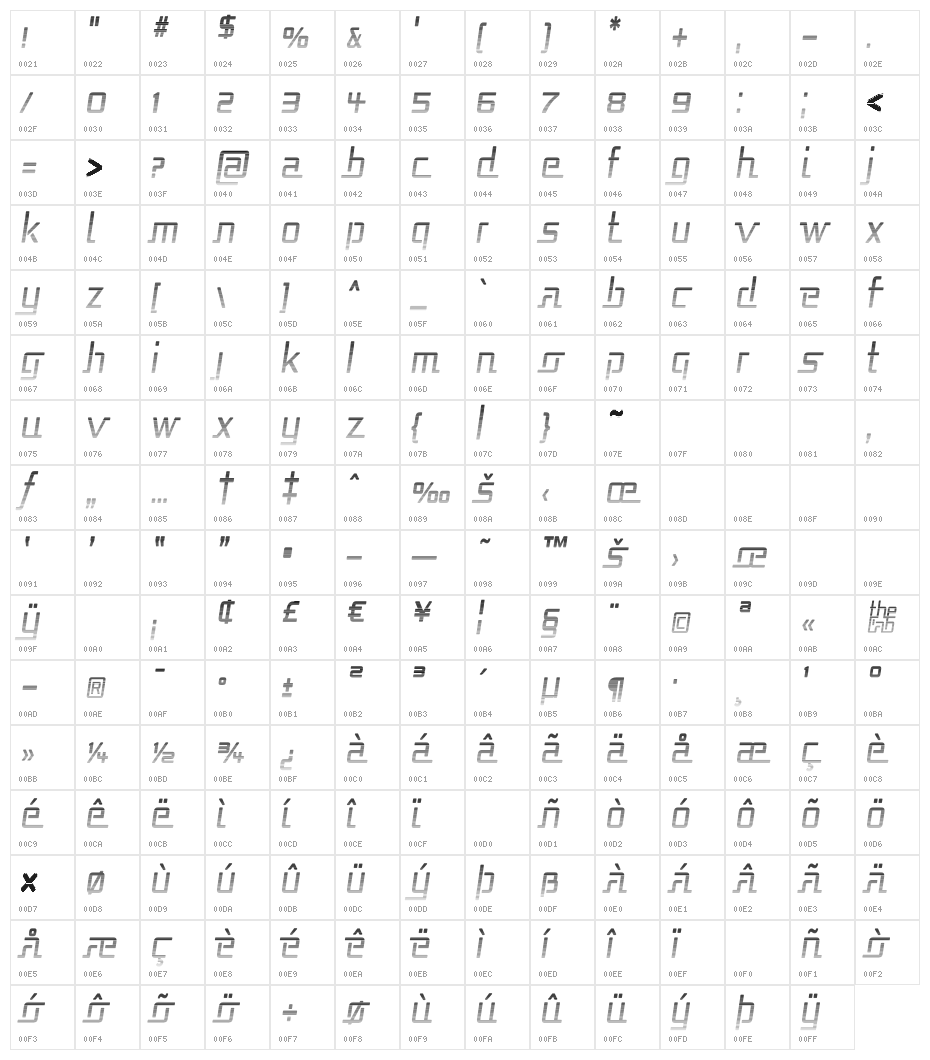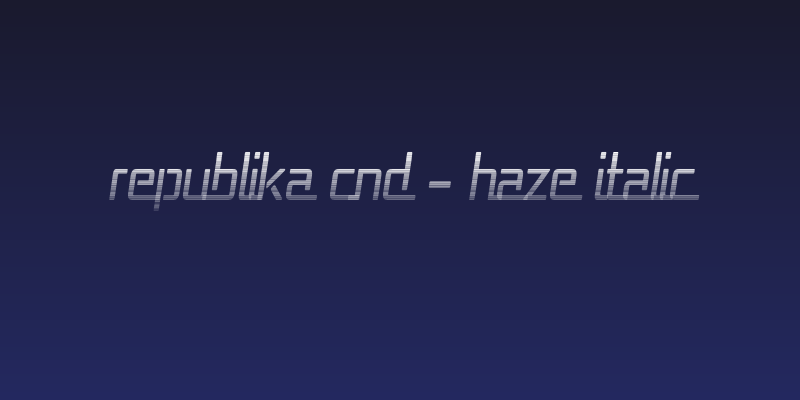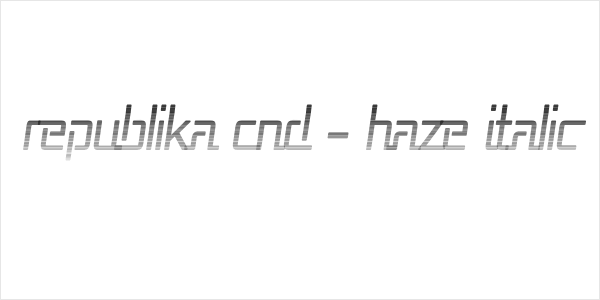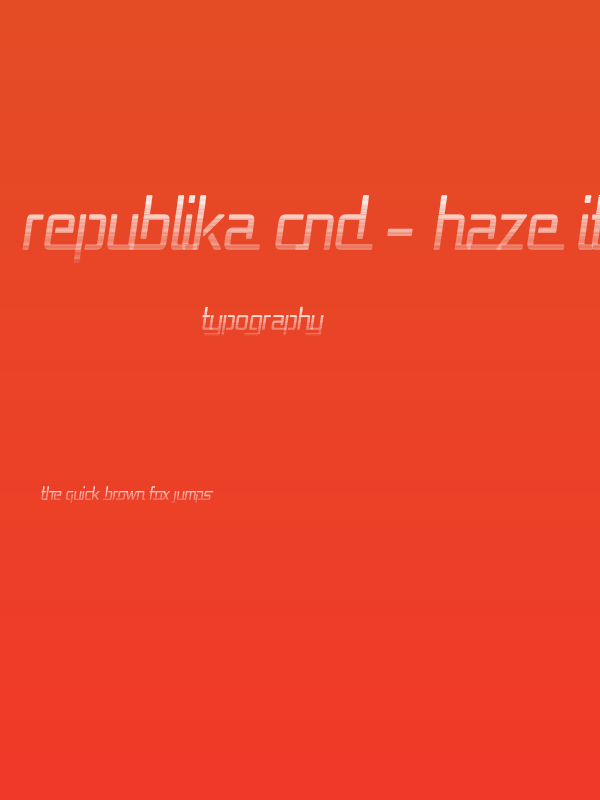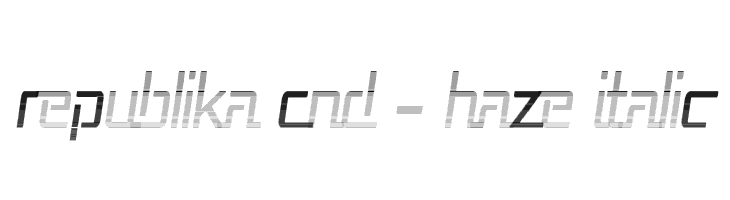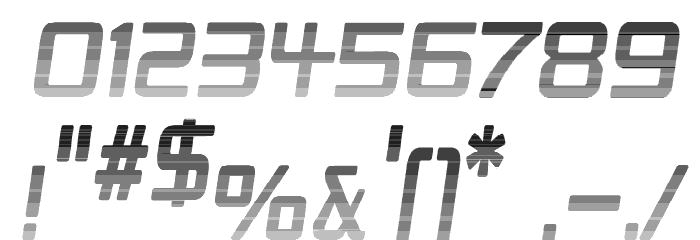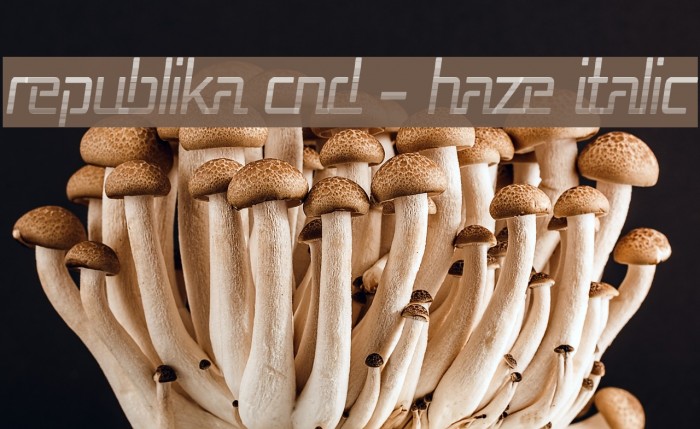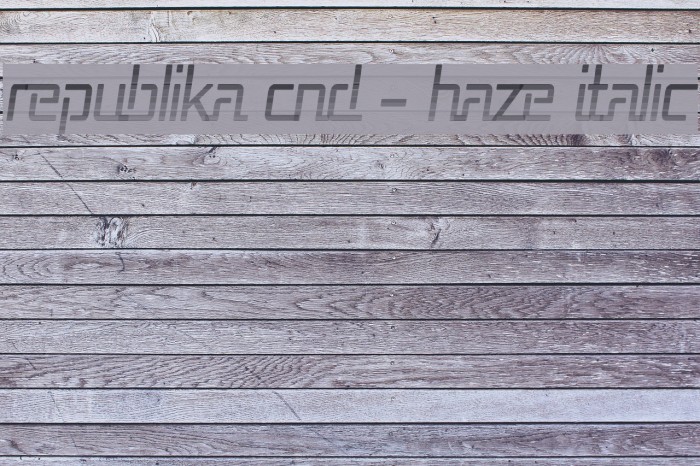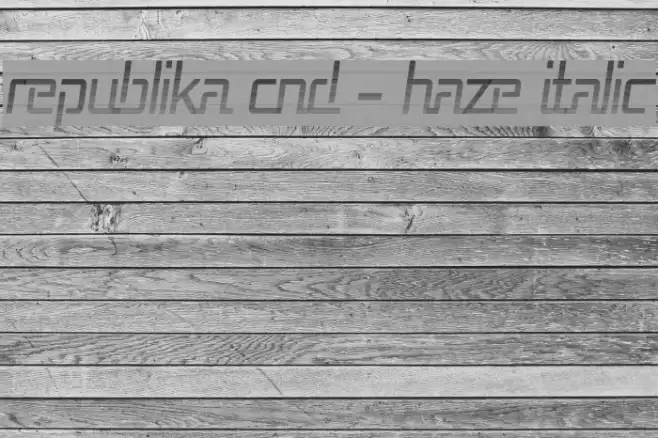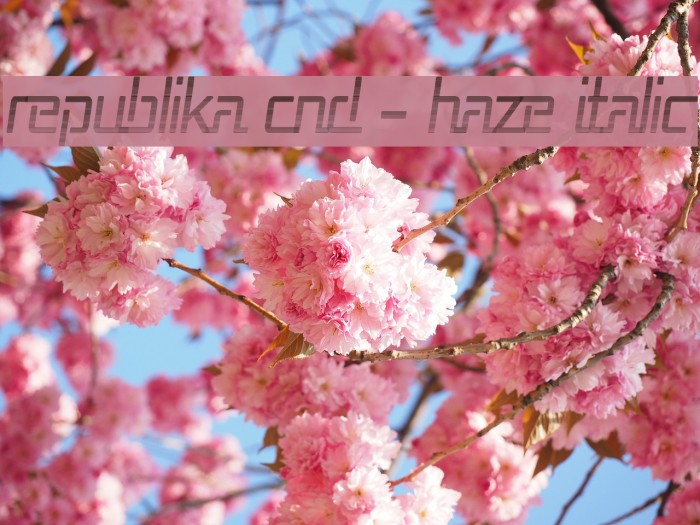
Republika Cnd - Haze Italic Font
Republika Cnd - Haze Italic Description
This font features a modern, futuristic design with a condensed and italicized style. The characters are sleek and angular, with a consistent slant that gives a sense of motion and dynamism. The strokes are uniform in thickness, contributing to a clean and streamlined appearance. The font's geometric shapes and sharp edges make it suitable for contemporary and tech-oriented projects. The character set includes both uppercase and lowercase letters, numerals, and a variety of special characters, all maintaining the same stylistic theme. The spacing between characters is tight, enhancing the compact and efficient look of the text.
| Use Case | Logos, Headlines, Digital Interfaces |
| Proposed Projects | Ideal for tech branding, futuristic posters, digital interfaces, and modern advertising. |